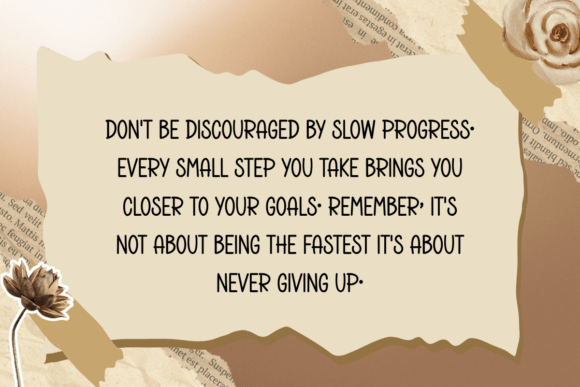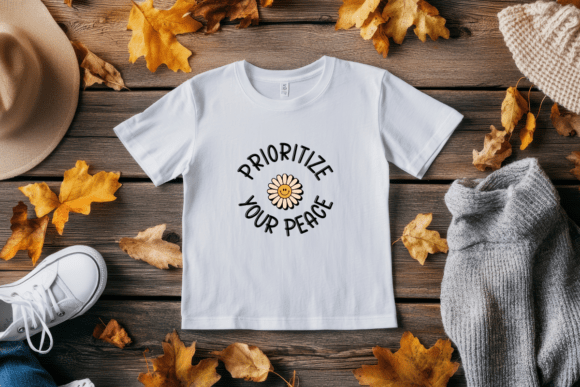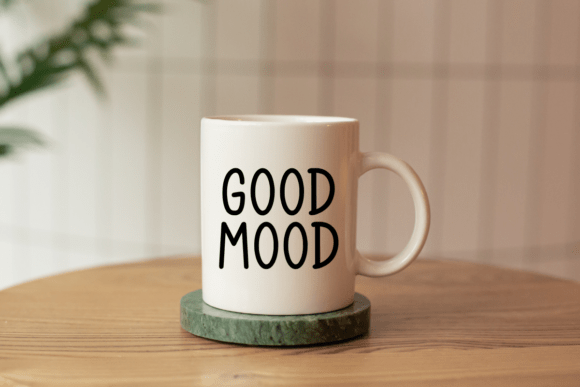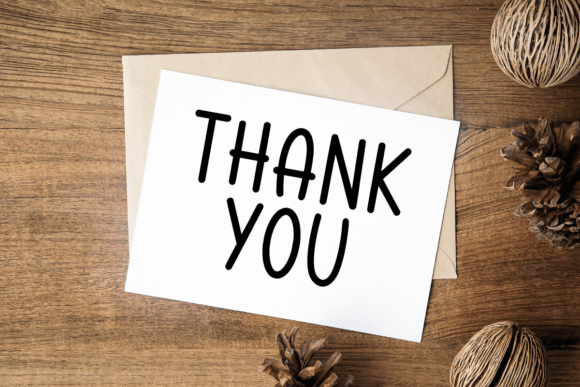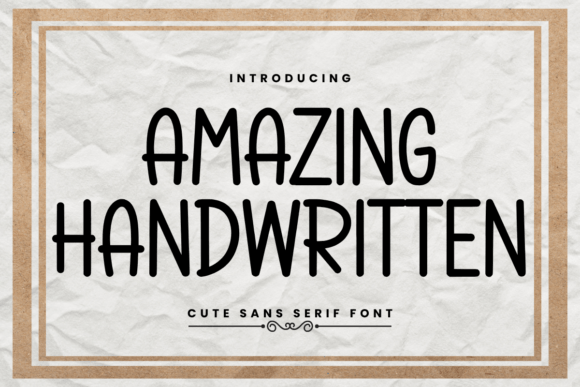
Discover the Charm of Amazing Handwritten Font
Are you a designer or crafter looking for a font that adds a touch of personality and whimsy to your projects? Look no further than the Amazing Handwritten font, a fancy handwriting font that is sure to delight. With its cute and playful style, this font is perfect for a wide range of applications, from quotes and stickers to mugs, tumblers, and more.
What Makes Amazing Handwritten Font So Special?
The Amazing Handwritten font is a unique and charming typeface that is designed to add a fun and cute touch to any project. Its handwritten style gives it a personal and approachable feel, making it perfect for designs that need to connect with the audience on a more emotional level. Whether you’re creating a birthday card, a planner, or a branding campaign, this font is sure to bring a smile to people’s faces.
Endless Possibilities with Amazing Handwritten Font
One of the best things about the Amazing Handwritten font is its versatility. It can be used for a wide range of projects, including:
• Quotes: Add a touch of elegance and sophistication to your quotes with this beautiful handwritten font.
• Stickers: Create fun and colorful stickers that are perfect for laptops, water bottles, or any other surface.
• Mugs and Tumblers: Add a personal touch to your mugs and tumblers with this cute and playful font.
• Sublimation: Create stunning sublimation designs that are perfect for t-shirts, tote bags, or any other fabric item.
• T-Shirts: Design eye-catching t-shirts that are sure to turn heads with this amazing font.
• Birthday Cards: Create personalized birthday cards that are sure to delight the recipient.
• Planners and Journals: Add a touch of whimsy to your planners and journals with this beautiful handwritten font.
• KDP Interior: Create stunning interior designs for your Kindle Direct Publishing (KDP) books with this font.
• Branding: Use this font to create a unique and memorable brand identity that stands out from the crowd.
• Laser Cut: Design intricate laser cut designs that are perfect for wood, metal, or any other material.
• Greeting Cards: Create beautiful greeting cards for any occasion with this amazing font.
Why Choose Amazing Handwritten Font?
There are many reasons why you should choose the Amazing Handwritten font for your next project. Here are just a few:
• Unique and Charming: This font is unlike any other, with its cute and playful style that is sure to capture the hearts of your audience.
• Easy to Read: Despite its handwritten style, this font is easy to read and understand, making it perfect for body text or quotes.
• Versatile: This font can be used for a wide range of projects, from digital designs to print materials.
• High-Quality: The Amazing Handwritten font is a high-quality typeface that is designed to deliver exceptional results.
Tips for Using Amazing Handwritten Font
Here are a few tips for using the Amazing Handwritten font in your designs:
• Pair it with Other Fonts: Experiment with pairing this font with other fonts to create a unique and interesting contrast.
• Use it for Headlines: This font is perfect for headlines and titles, where its playful style can really shine.
• Add some Color: Don’t be afraid to add some color to your designs, as this font looks great with bright and bold hues.
• Experiment with Sizes: Try out different font sizes to see how this font looks in different contexts.
Font Name Amazing Handwritten Font
Author Letterayu
In conclusion, the Amazing Handwritten font is a unique and charming typeface that is perfect for designers and crafters looking to add a touch of personality and whimsy to their projects. With its cute and playful style, this font is sure to delight audiences of all ages. Whether you’re creating a birthday card, a mug, or a branding campaign, this font is sure to bring a smile to people’s faces. So why wait? Download the Amazing Handwritten font today and start creating amazing designs that are sure to stand out from the crowd!